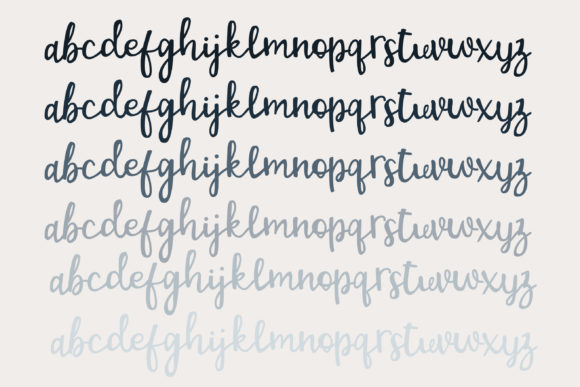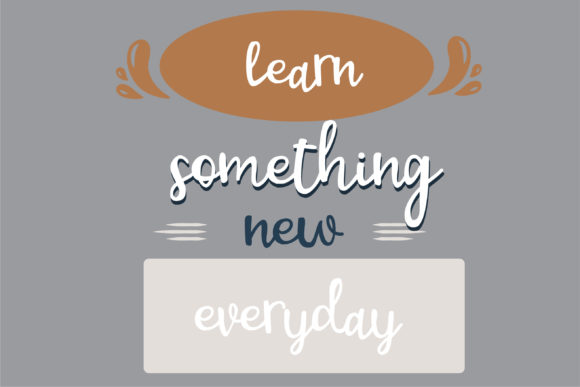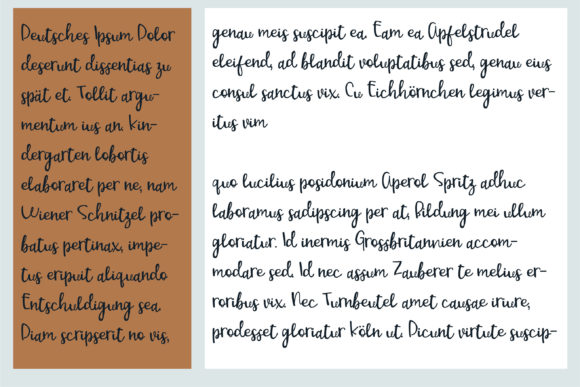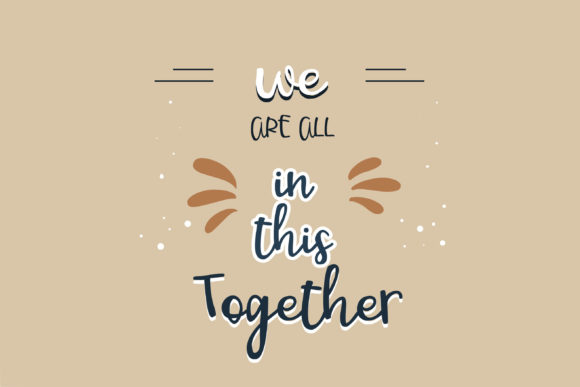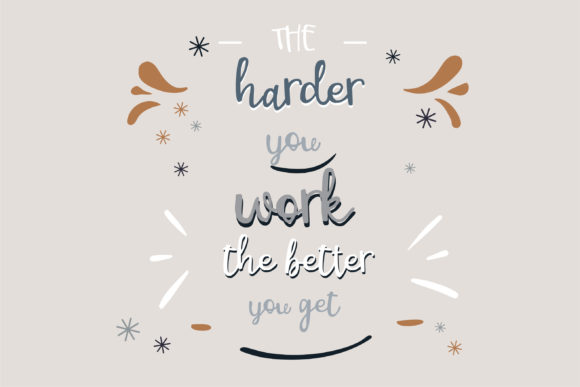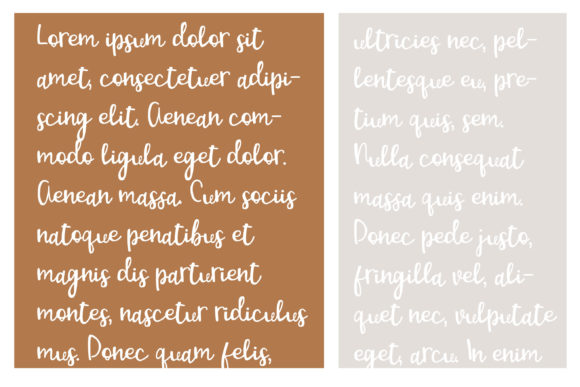
Introduction to Froogalou Font
As a designer, have you ever found yourself staring at a blank canvas, struggling to bring your creative vision to life? The blank page can be daunting, but what if you had the perfect tool to set your imagination free? That’s where the Froogalou Font comes in – a beautiful, whimsical script font designed to elevate your packaging, invitations, flyers, and event posters to the next level.
With its balanced character and high-quality vibes, Froogalou Font is the ultimate design resource for any creative project. Whether you’re working on a packaging design or crafting an event poster, this font will help you convey a sense of elegance and sophistication. Plus, its transparent background makes it easy to customize and integrate into any design.
Key Features of Froogalou Font
- Unique, hand-drawn design with a transparent background for seamless integration
- Perfect for digital designs, including web pages, social media graphics, and print materials
- Can be easily customized to fit the needs of your creative project
Honest Review: Froogalou Font
I recently stumbled upon the Froogalou Font while searching for a design resource to elevate my creative project. I was drawn to its unique and playful style, which immediately caught my attention.
What works well: ✨ The Froogalou Font has a high quality feel to it, making it perfect for a wide range of creative projects. Its transparent background allows for seamless integration with any design. I also appreciate that it’s available for free download, making it an excellent choice for designers on a budget.
However, I did encounter a few limitations: ⚠️ The font is only available in a single weight, which may limit its use in certain situations. Additionally, the font may not be suitable for all types of projects, particularly those requiring a more formal tone.
Overall, I’m impressed with the Froogalou Font and would recommend it to designers looking for a fun and creative design resource. Its high quality and free download make it an excellent choice for any project.
Common Use Cases for Froogalou Font
The Froogalou Font is perfect for creating:
- Branding materials, such as logos and business cards.
- Social media graphics and advertisements.
- Presentations and reports.